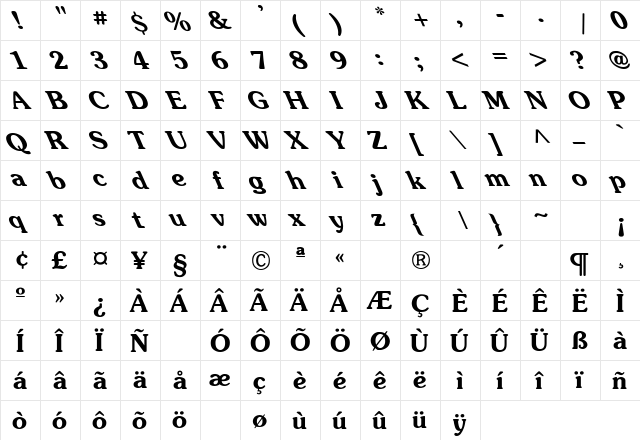
Souvenir-Light-Bold Lefites Regular
Design Context for Souvenir-Light-Bold Lefites Typeface
Souvenir-Light-Bold Lefites is a composed and adaptable typeface that performs quietly and consistently across a wide range of design contexts. The heavy weight commands attention and anchors typographic hierarchies.